Anyone who’s tried their hand at designing a typeface will know it’s a wildly difficult process, and to actually come out at the end with something attractive takes an extreme amount of skill, taste and patience.
Type design isn’t for everyone, but typography is, and nearly every designer works with it every day. This is exactly why Type Release creator Sean Mitchell is here to share with you a list of 32 beautiful typefaces, all of which were released over the last month. See his findings from April, only on TNW:
Wordshape: Vaud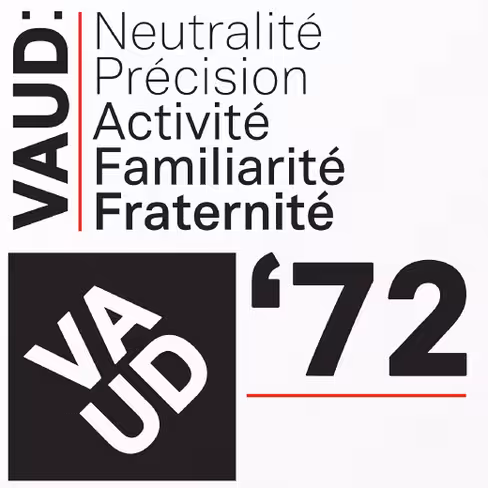
A neutral, yet formally nuanced grotesk typeface.
Latinotype: Trend Hand Made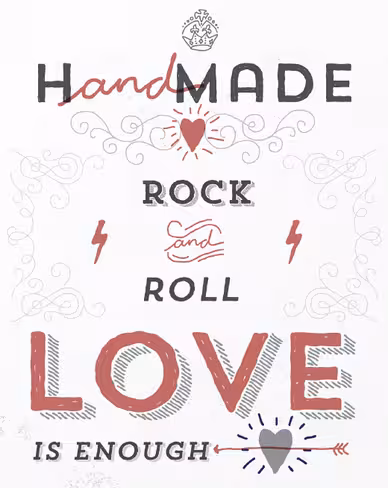
A typeface made of layers, taking as a basis a sans and a slab font, Trend is trending.
Lineto: LL Circular
Strikes a balance between conceptual rigour, skilled workmanship and measured idiosyncrasy, resulting in a no-nonsense sans-serif text font with unmistakable character yet universal appeal.
HVD Fonts: Mikado
Intended to be used everywhere where a pleasant feeling should be conveyed.
Yellow Design Studio: Verb Condensed
A modestly condensed version of the original Verb family.
Virus Fonts: Doctrine
By blending elements of twentieth-century neo-grotesque, humanist and geometric styles, Doctrine is at once universal and idiosyncratic.
Emigre: Program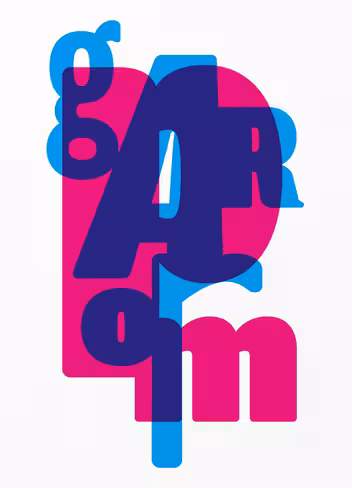
A type designer’s typeface. It’s about the craft of typeface design and the particular details and effects that type designers fret over when they design type.
Lost Type Co-op: Fairview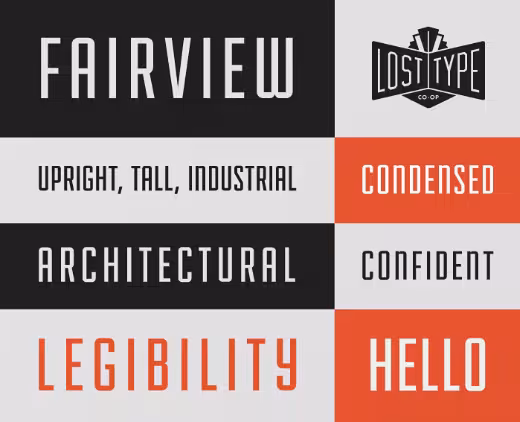
A condensed sans-serif, inspired by the industrial lettering of the 20th century.
Hiekka Graphics: Sini
A warm and delicious hand-lettered typeface in two styles, bold and ornaments.
Typesenses: Wishes Script
Offers a complete range of possibilities: frames, ribbons, hearts, flowers, ornaments, swashes, endings, ligatures and all the alternates you need.
Symbolset: Steedicons
A lively set designed by Kyle Steed with a personal hand-drawn style.
Positype: Shameless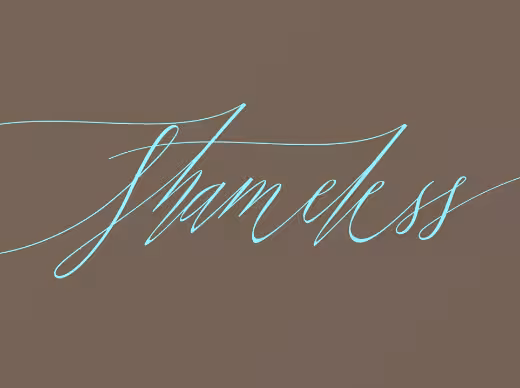
Makes extensive use of Contextual alternates to create a proper ebb and flow from letter to letter.
Voltage LTD: Oaf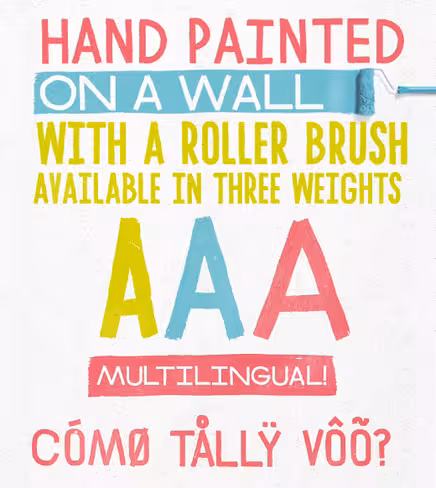
Painted on a wall by an eccentric Canadian with a paint roller. The result is an unusual combination of straight, evenly weighted strokes and rough, handmade charm.
Hipopotam Studio: Mr. Happy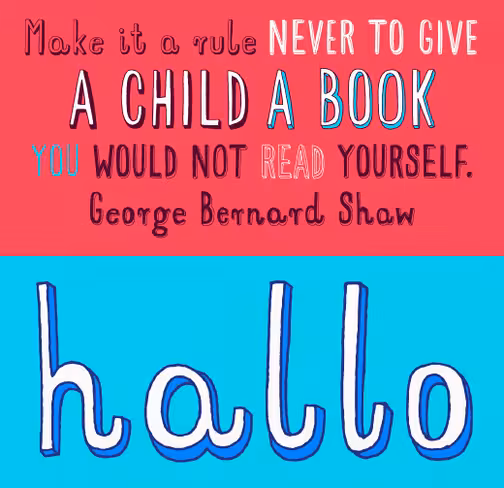
A hand-drawn, layered, narrow typeface.
Resistenza: Sonica Brush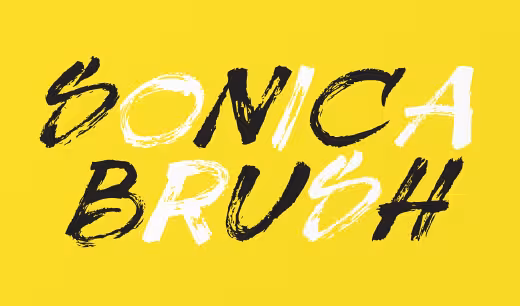
A handwritten font, designed with a japanese brush and sumi.
Fontsmith: FS Emeric
A font that is authoritative, but never sacrifices its humanity.
Mika Melvas: Riona Sans
It can be elegant and subtle, it can be strong and dynamic, friendly or powerful.
Hold Fast Foundry: Abolition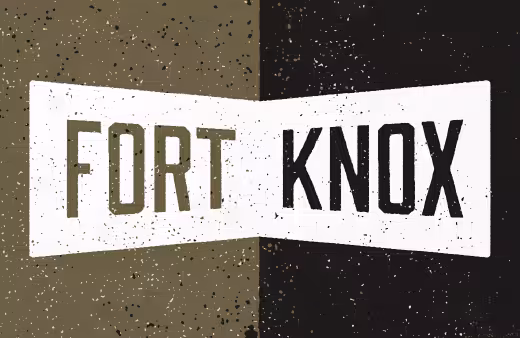
A condensed sans-serif display typeface thats got a knack for propaganda posters and industrial buildings.
Typonine: Audree
A type system with several hundred styles.
Domahoka: Uchronia
A classic serif titling face ideal for setting at large sizes; slightly condensed, light, with a very fine weight on its thinnest strokes.
Great Lakes Lettering: Icing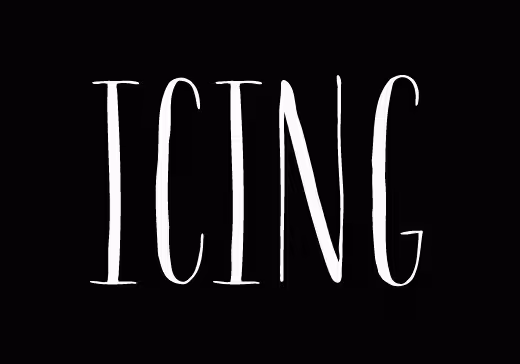
A delicate, handwritten font with a somewhat masculine feel which mimics the natural stroke of pointed pen calligraphy.
La Goupil: Naive Inline
A serif handwritten font, can be enhanced with a bicolor interior, ribbed or full.
Typofonderie: Mislab
A brighter and more legible slab serif than most, Mislab aptly combines the strength of a slab serif with the lightness of a sans-serif.
Lián Types: Bird Script
Characterized by quickness, lightness, and ease of movement.
Nootype: Selfica
The sans-serif version of the Selfico designed by Nico Inosanto.
Nina Stössinger: Sélavy
A dotted typeface loosely based on the 13 punched-out caps on Marcel Duchamp’s 1934 Green Box.
TipografiaRamis: Rams
Influenced by the geometric style of sans-serif faces of the 30s.
Autobahn: Morrissey
A tribute to the song “There Is A Light That Never Goes Out” by The Smiths.
Canada Type: Albertan Pro
The first Jim Rimmer typeface to make the transition from metal to digital.
Nonpareille: Basetica Pro
Ironically recalls the “Swiss International Style” of the 50s and 60s.